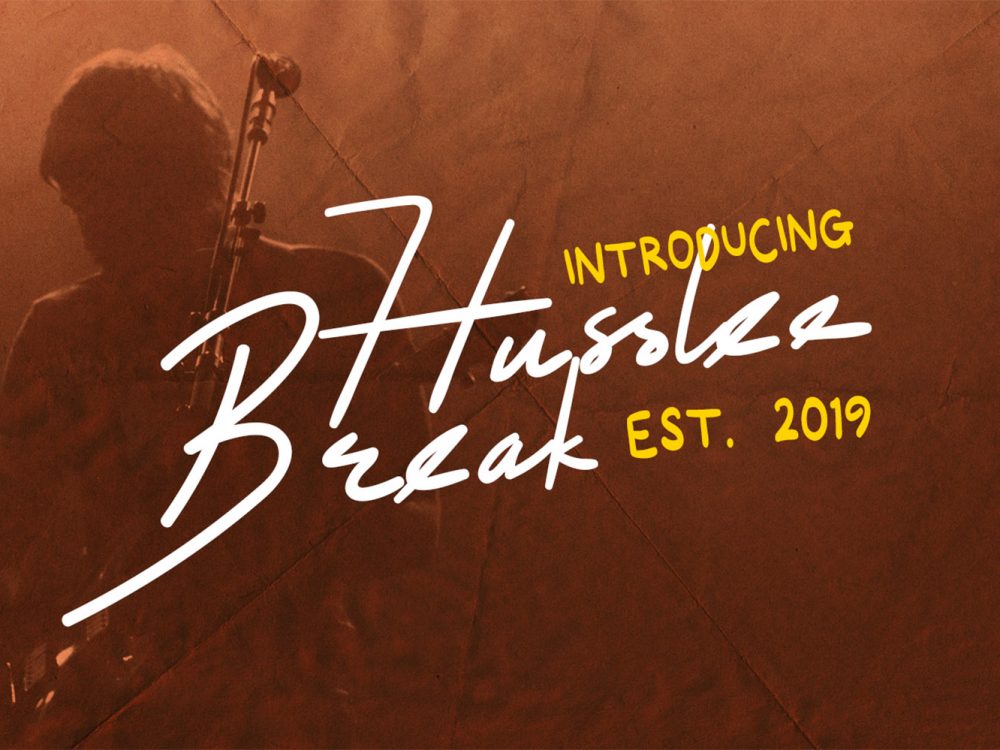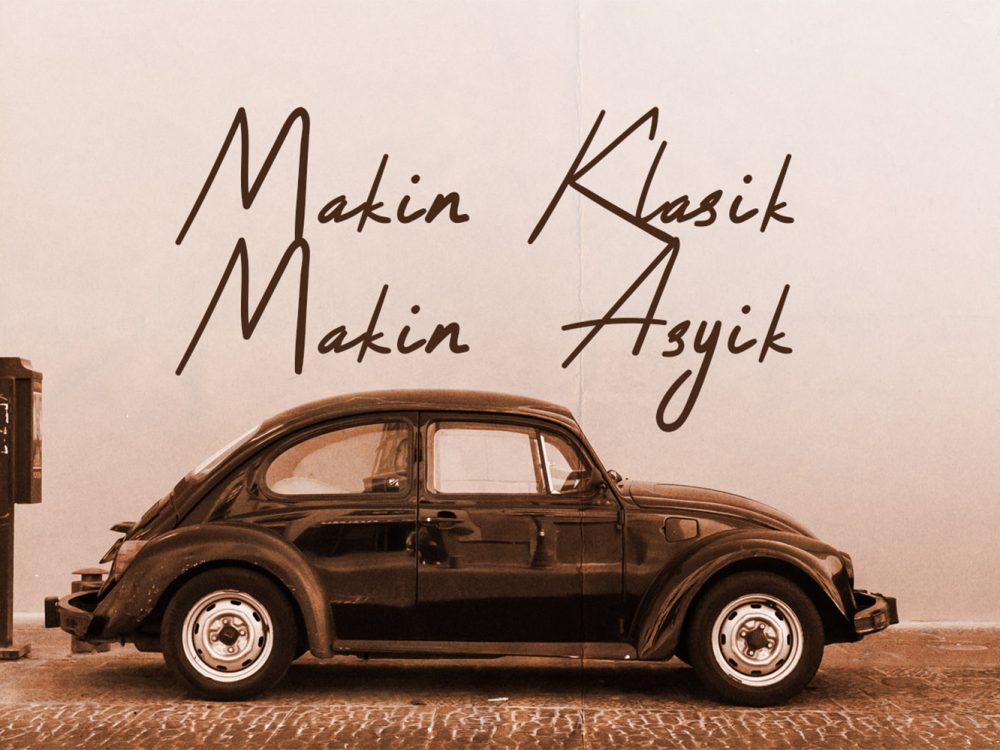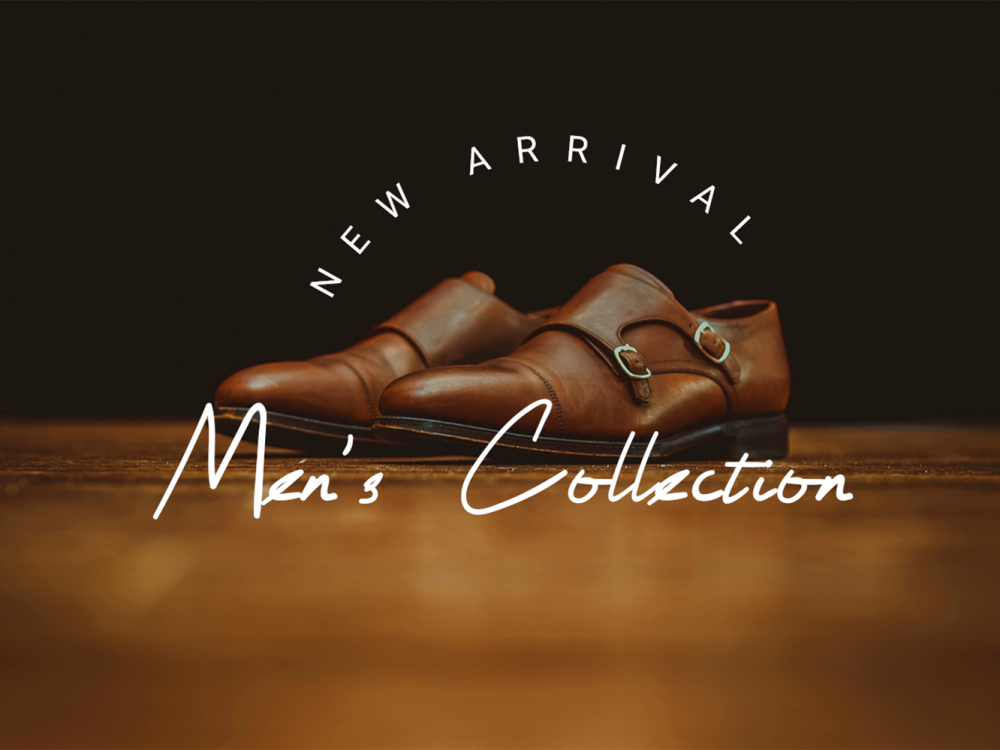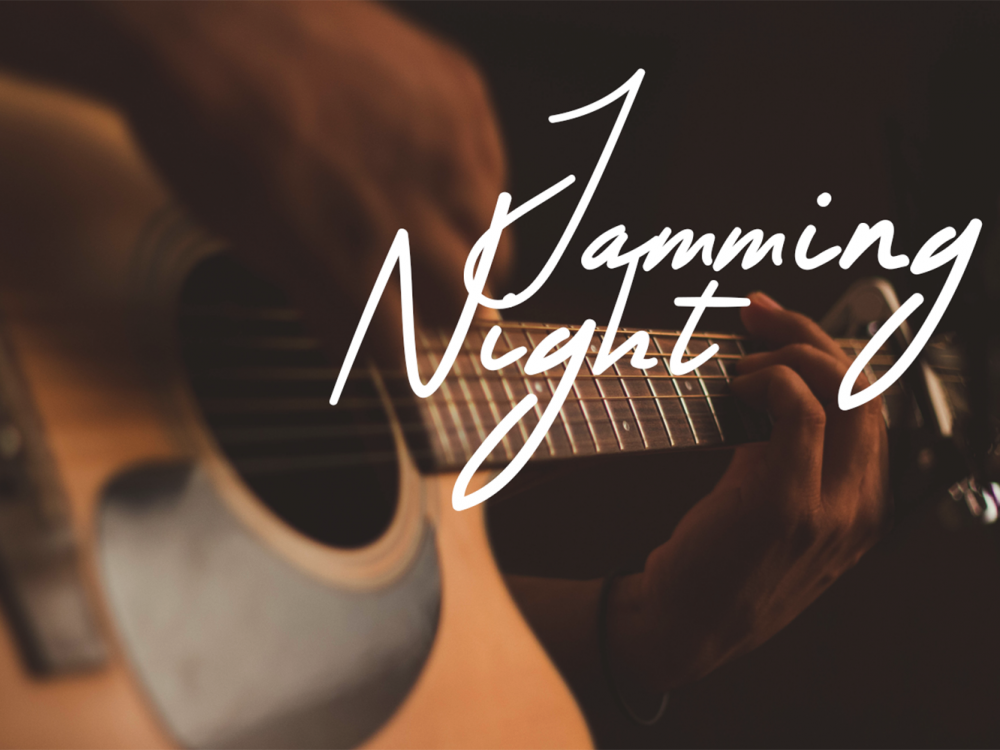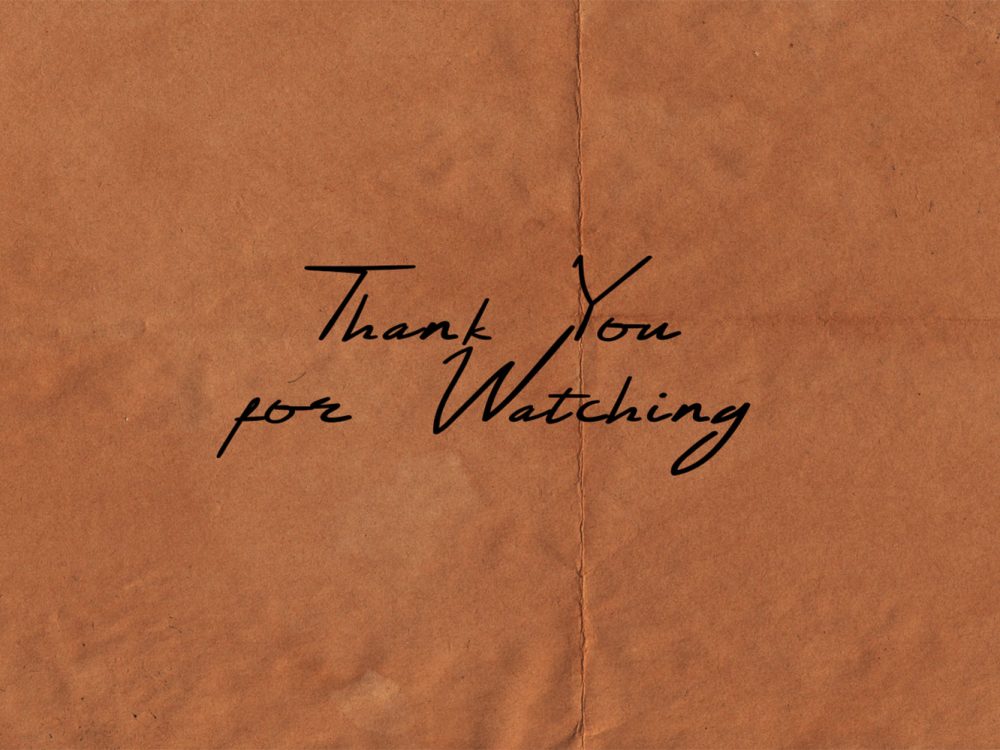
Husslee Break Free Font
Husslee Break Free Font is an interesting calligraphic font with an elegant style. This font is very suitable for creating various design projects that require a scripted font. You can use this font to create memorable romantic posters, wedding invitations, greeting cards, branding, flyers, t-shirt and pillow prints, and more. Improve the quality and increase the popularity of your design projects using this font. If you like it don’t forget to check out the full version.